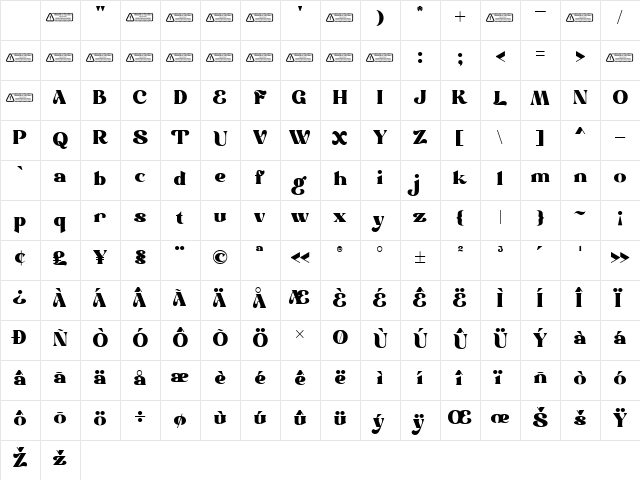
Emerge Demo is a composed and adaptable typeface that performs quietly and consistently across a wide range of design contexts.
Pro Tip: Use Emerge Demo in both headline and body roles to test its range before committing to a single application.